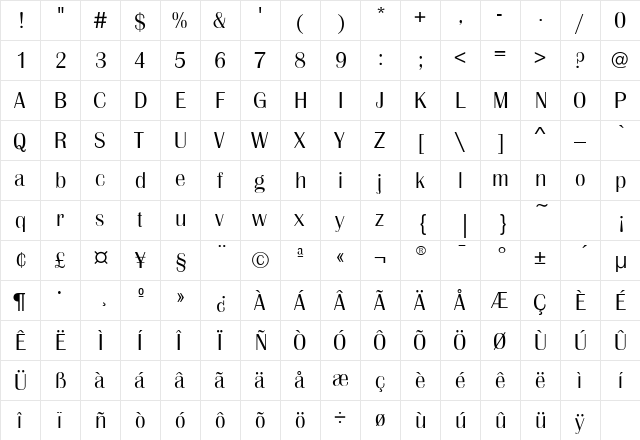
BritannicEFLight Regular
Design Context for BritannicEFLight Typeface
BritannicEFLight takes a measured approach to typography — its balanced proportions and neutral character make it a reliable workhorse for both digital and print work. Its slender proportions lend an understated elegance to any composition.
Pro Tip: Use BritannicEFLight in both headline and body roles to test its range before committing to a single application.